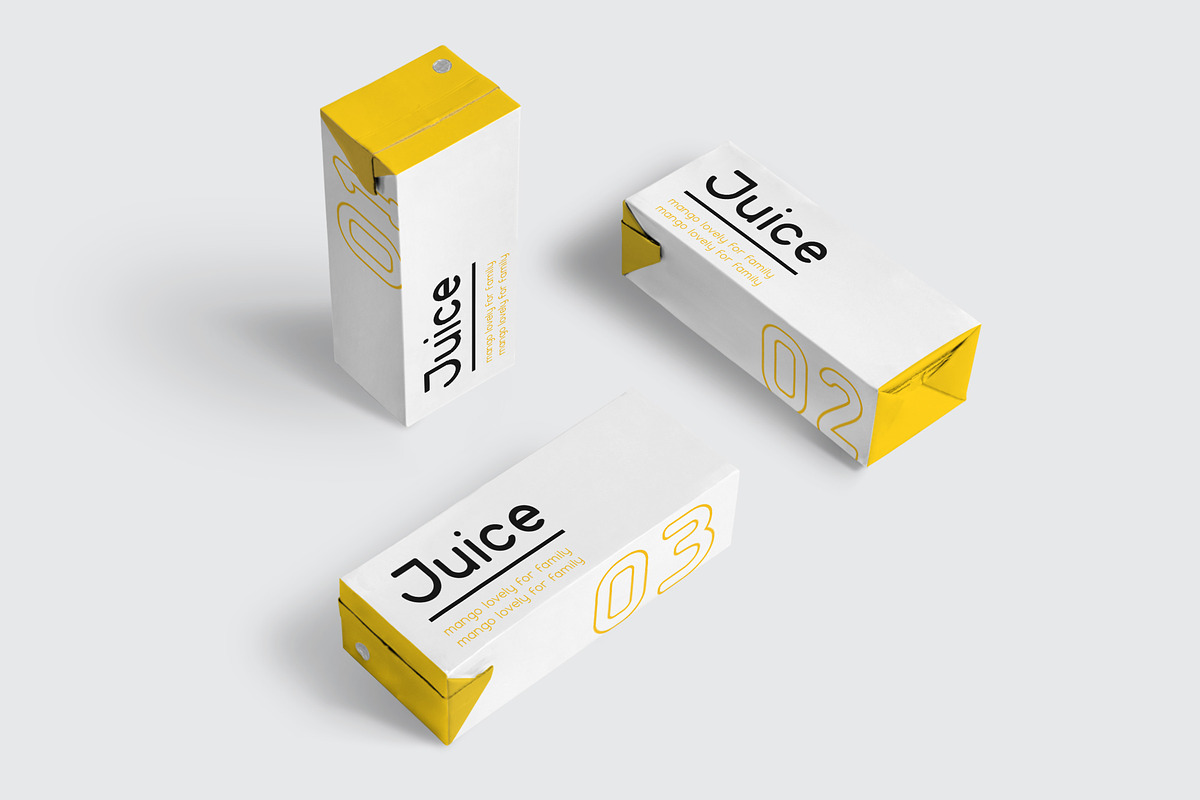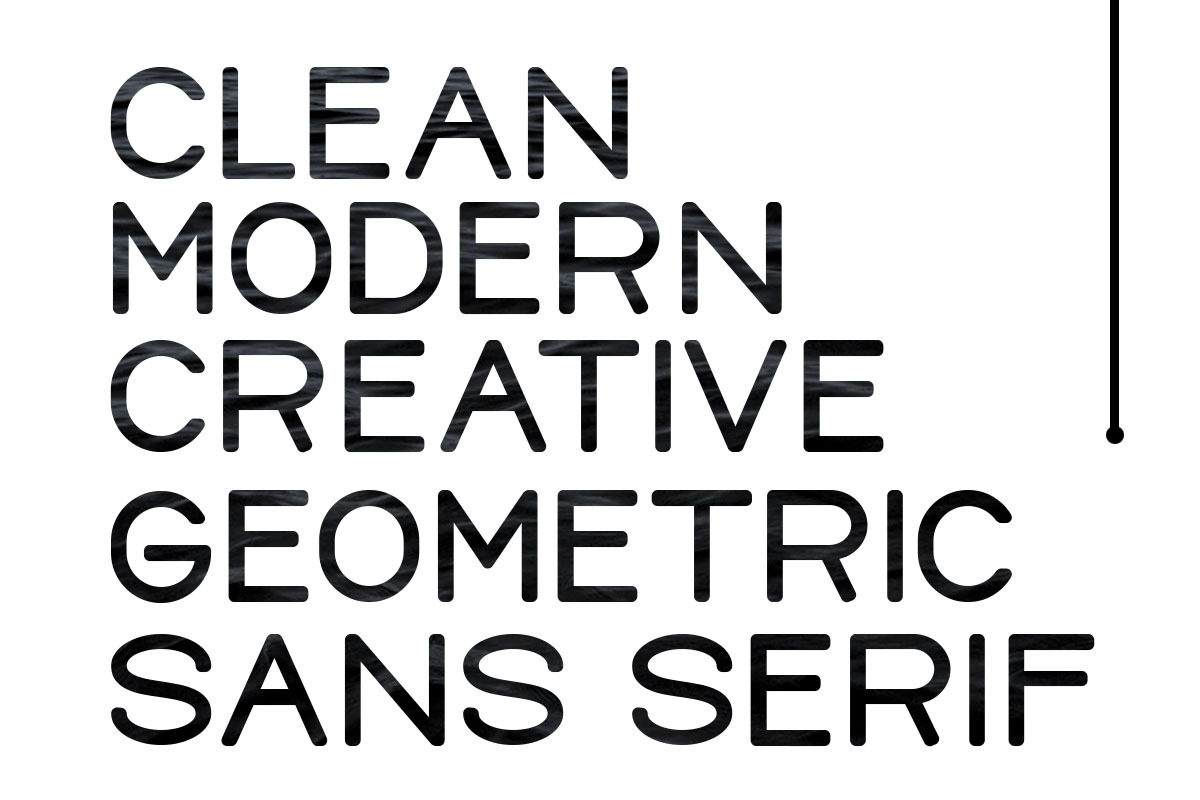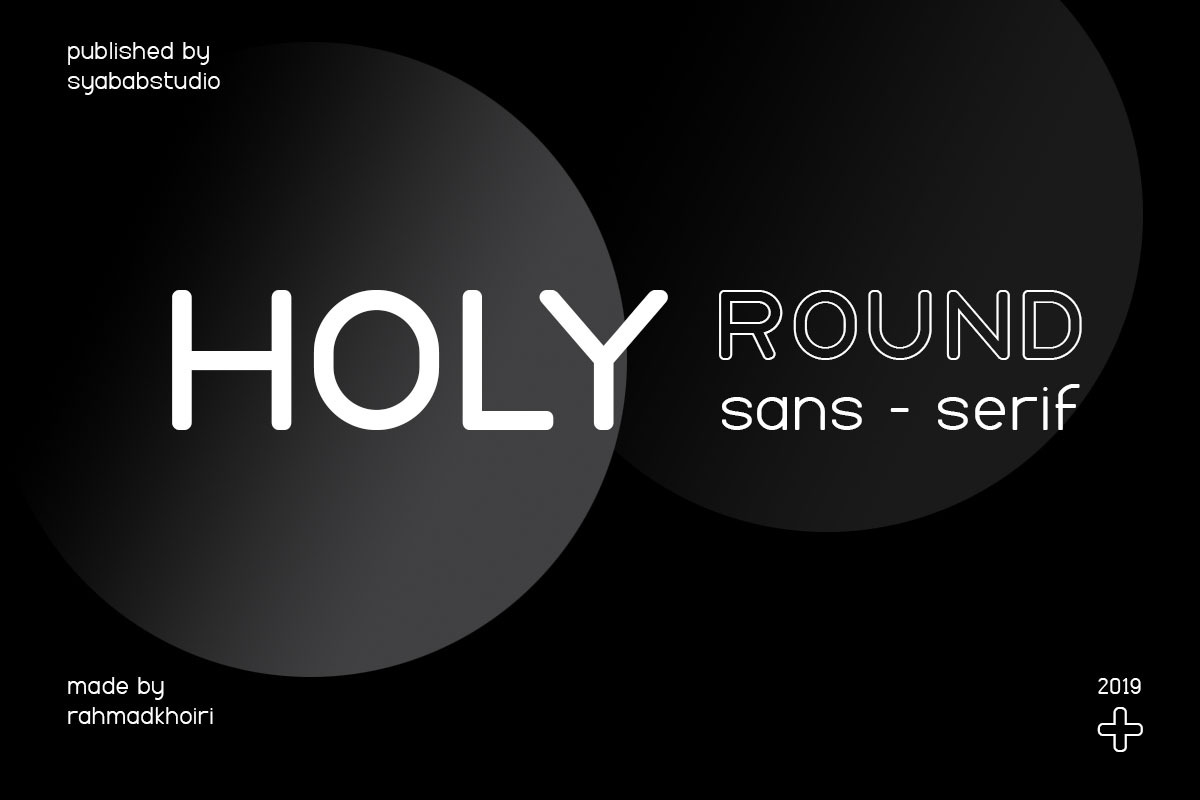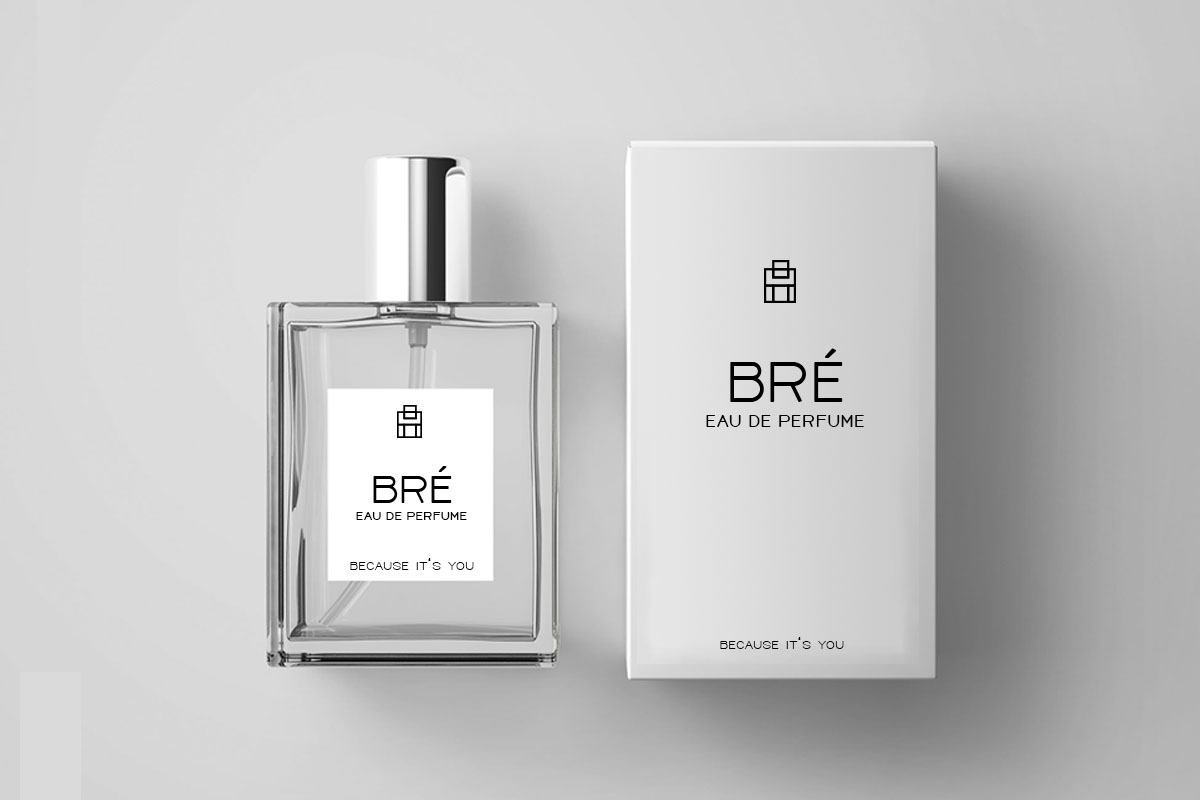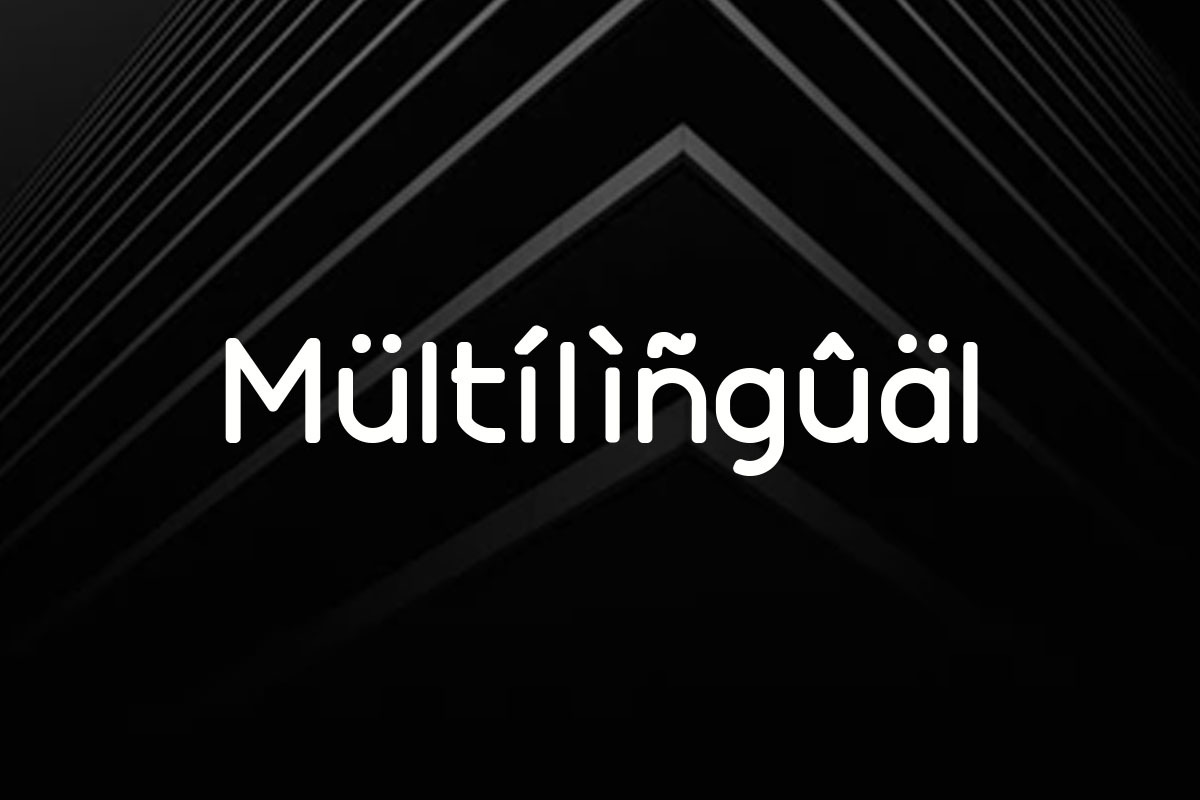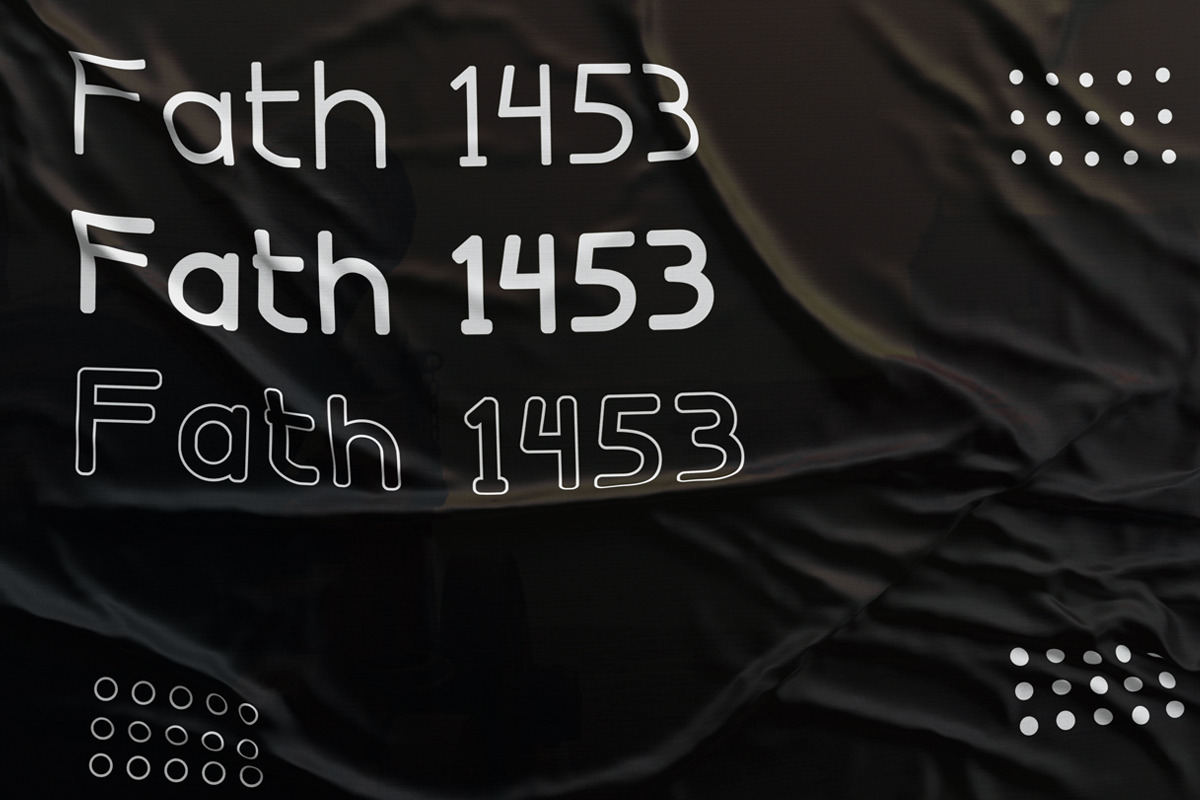
Holy Font
Rugged, hearty, and warm. Holy is a versatile font family. Strong capitals and a smooth, open lowercase are effective in a variety of applications. The geometric, near-monoline construction lends Holy classic durability, tempered by softened edges and vibrant shapes.
- Seven weights plus obliques
- Latin and Cyrillic alphabets
- OpenType features, including contextual alternates